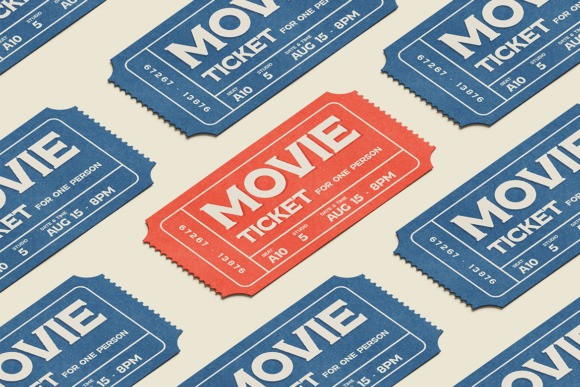
Gecko Font
Gecko Font is a vintage serif font that perfectly blends classic style with a modern touch. With its soft curves and balanced weight, this font creates an elegant, clean, and charming impression. Inspired by the retro typography of the 70s, Gecko is the ideal choice for design projects that need a warm, nostalgic feel.